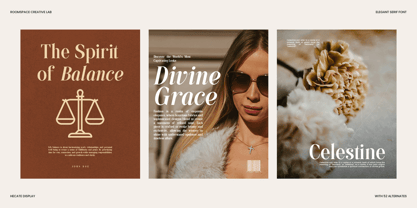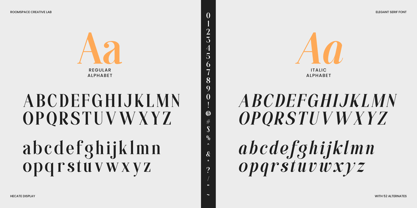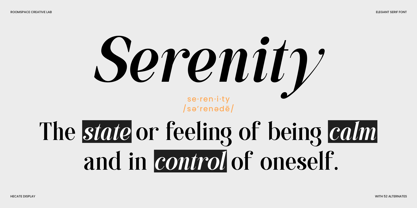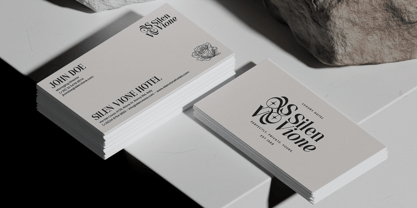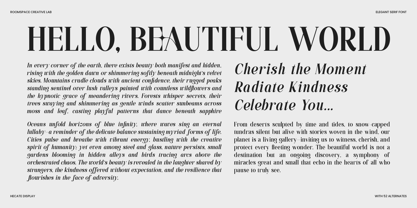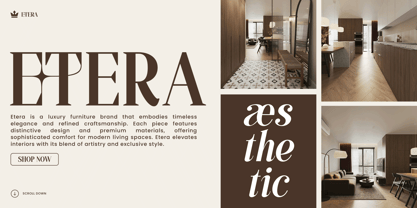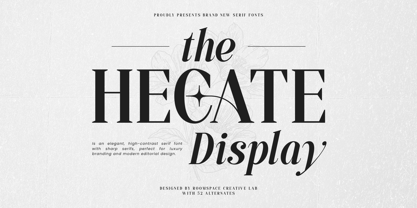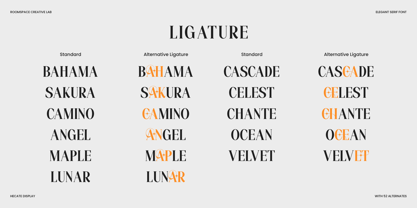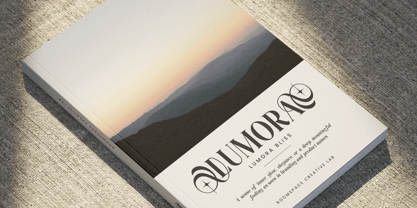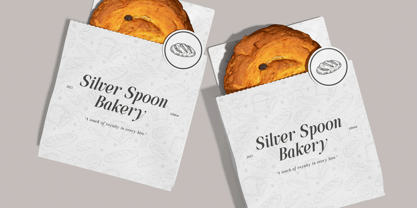
Hecate Display
by Jafar07
The Hecate Display Font Family was designed by Bakhrudin Ja'far and published by Jafar07. Hecate Display contains 2 styles and family package options. More about this family
the Hecate Display is a refined serif typeface designed to bring sophistication and balance to your visual projects. Its high-contrast strokes and confident serifs make it ideal for those seeking a timeless yet modern aesthetic. Whether you’re creating luxury branding or elegant editorials, Hecate Display blends strength and grace in every letterform. Each character of Hecate Display was carefully crafted with precision featuring clean lines, graceful curves, and sharp serifs that give every composition a polished look. With 52 alternates, it provides flexible creative possibilities for crafting unique headlines, logos, or visual identities. The font maintains excellent legibility even at large sizes, making it a strong choice for impactful layouts. Perfect for branding, magazine titles, product packaging, invitations, and modern advertising, Hecate Display adapts effortlessly to both digital and print use. It’s a versatile serif font that balances elegance with functionality. Try Hecate Display today and elevate your next project with a professional, editorial touch.
Designers: Bakhrudin Ja'far
Foundry: Jafar07